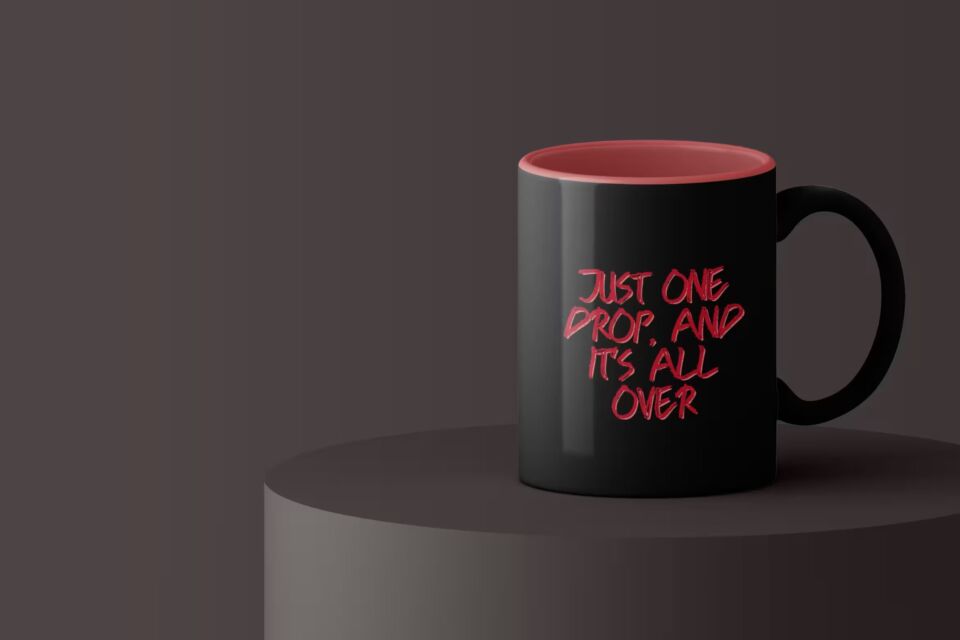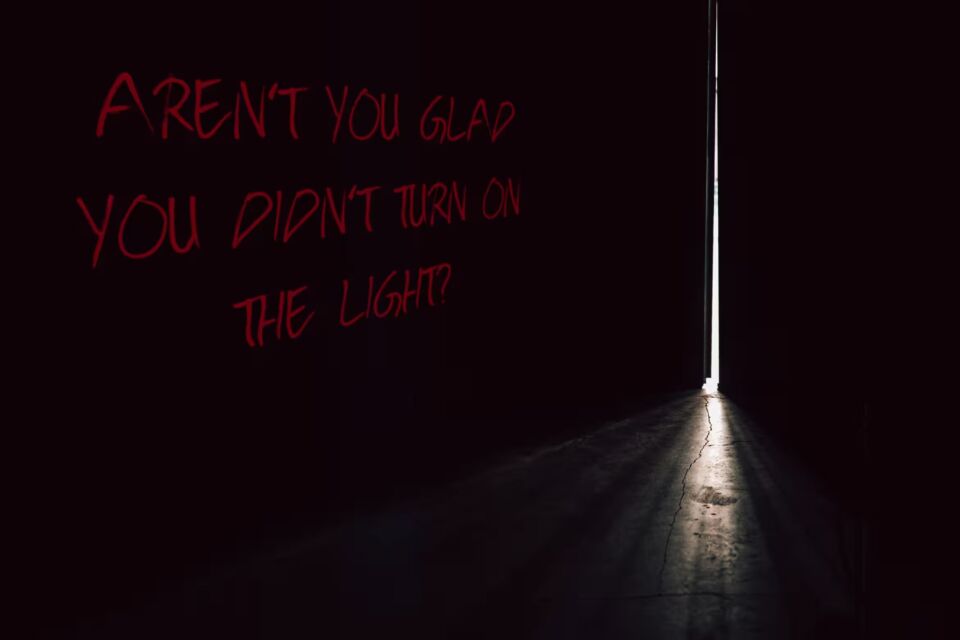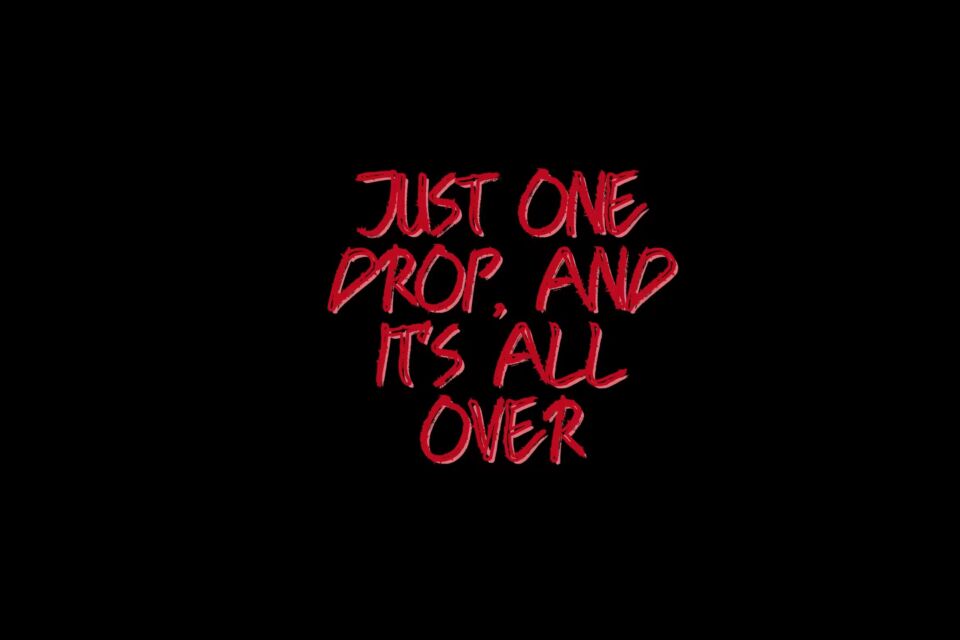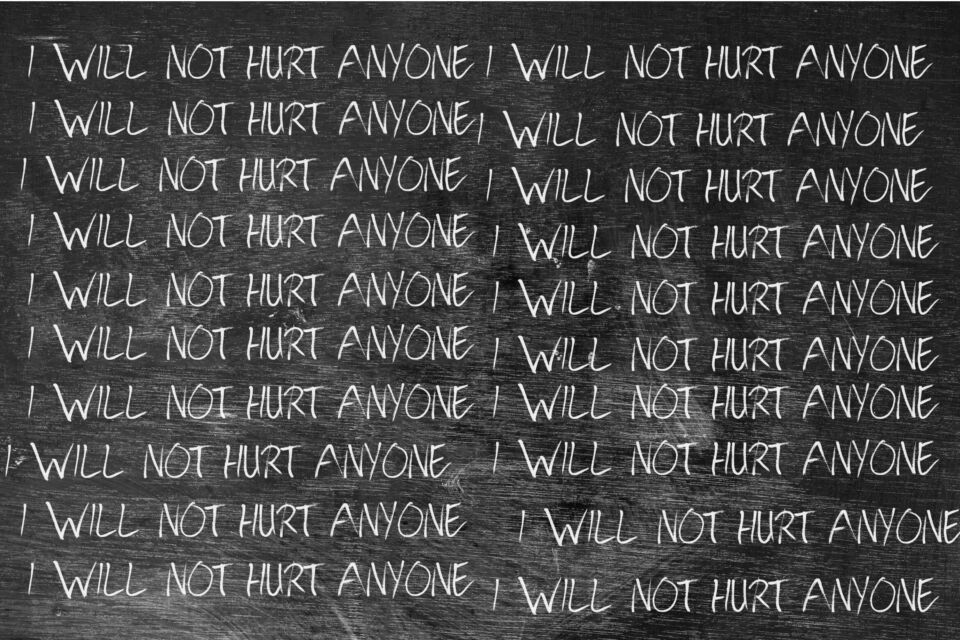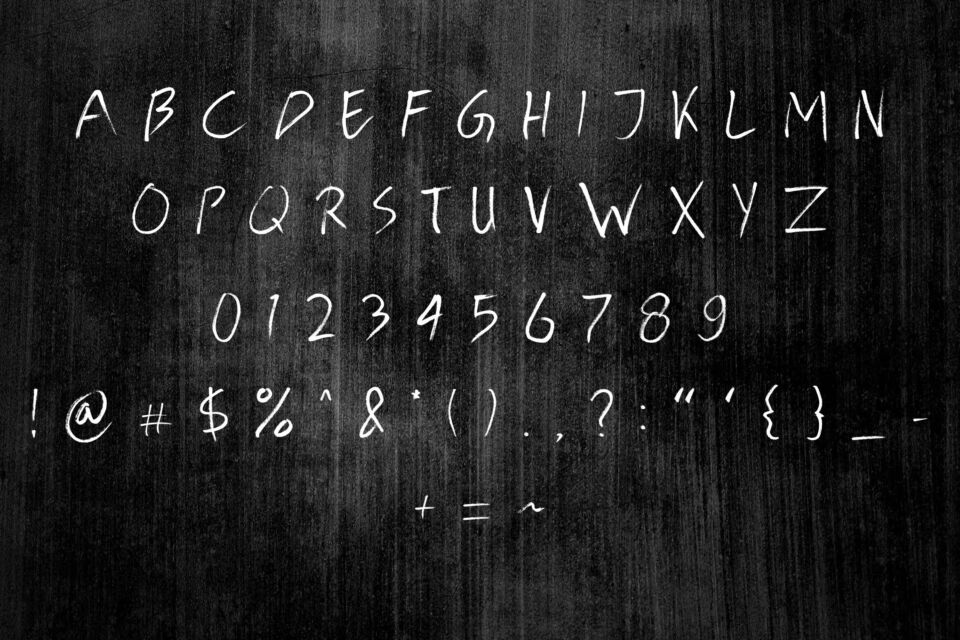
Bloody Mary is a free hand-painted brush font with a raw, jagged texture and a horror-inspired aesthetic. Its rough strokes and distressed edges evoke an eerie, intense vibe, perfect for horror movie posters, spooky flyers, game titles, and dark branding. It delivers a chilling, fear-inducing impact.